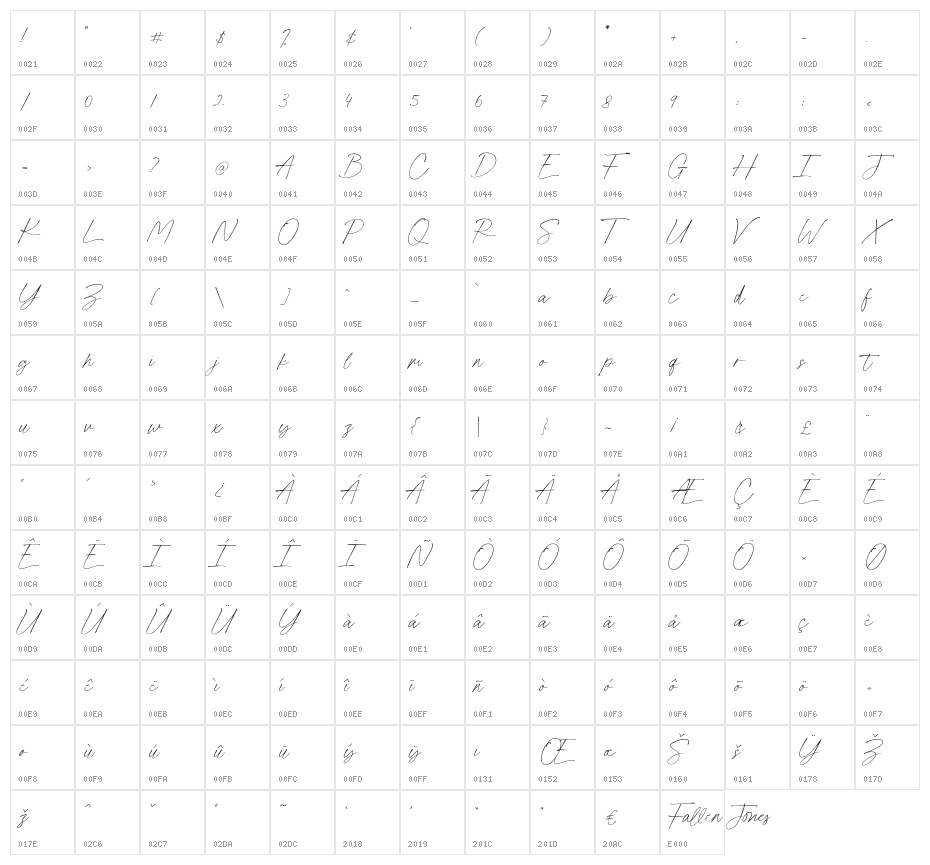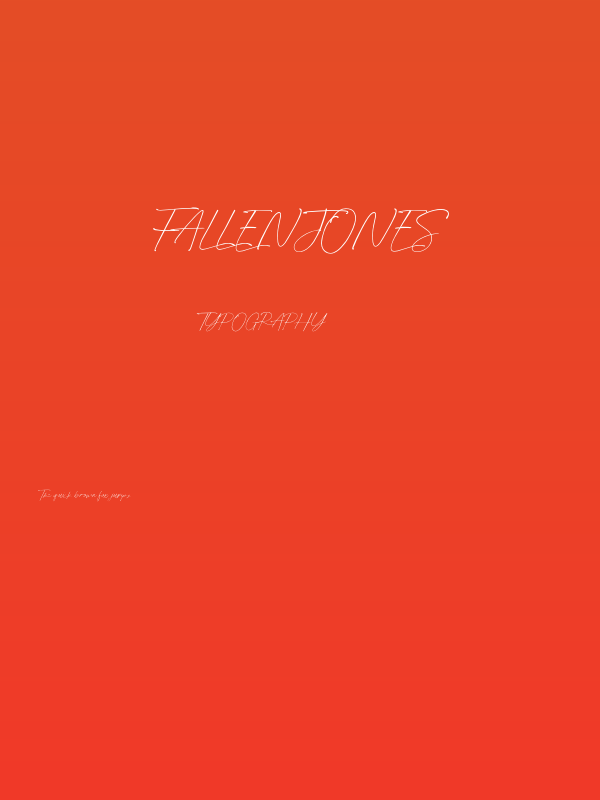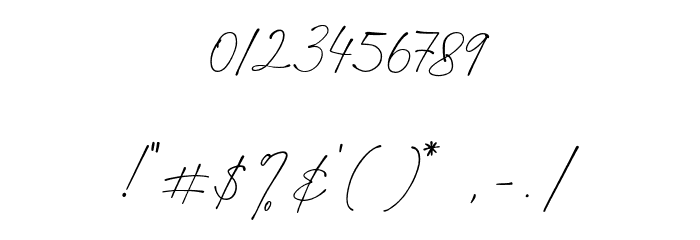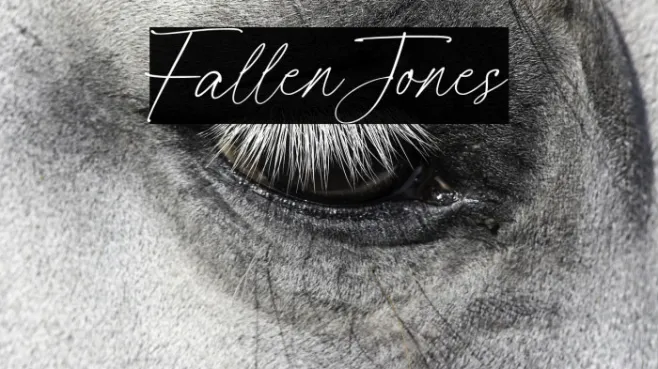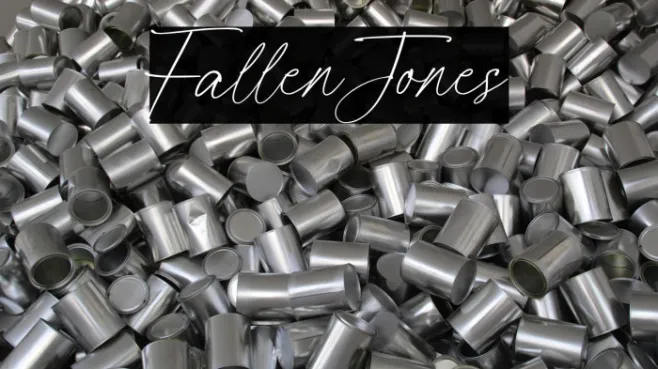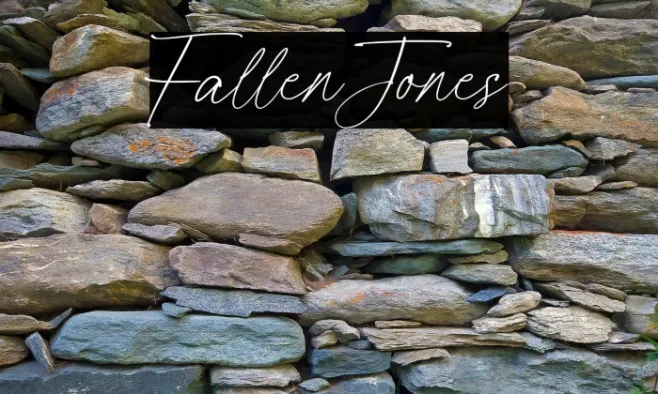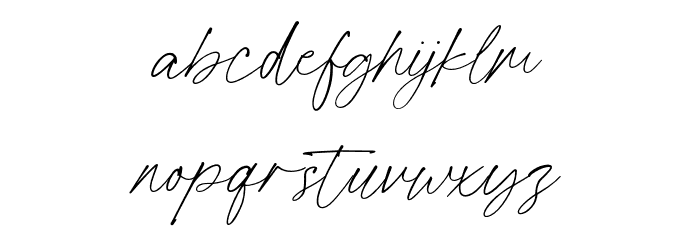
FallenJones Font
FallenJones Description
This elegant script font features a flowing, handwritten style with a modern twist. The letters are connected with smooth, fluid strokes, creating a sense of movement and grace. The uppercase letters are slightly more elaborate, with subtle flourishes that add a touch of sophistication. The lowercase letters maintain a consistent flow, enhancing readability while preserving the artistic flair. The numerals and special characters are designed to match the overall aesthetic, ensuring a cohesive look across all text elements. This font is perfect for projects that require a personal, yet polished touch.